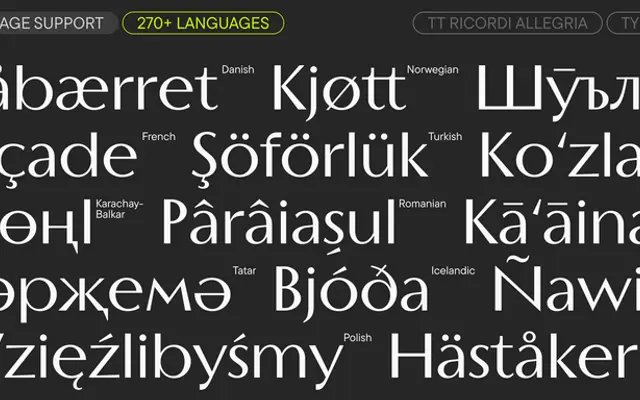
TT Ricordi Allegria
TypeType · Antonina Zhulkova · 2021
A high-contrast display sans drawn from semi-erased stone inscriptions at Florence's Basilica di Santa Croce, with multiple stylistic sets that shift its character from austere to fluid.
Designed by Antonina Zhulkova as part of TypeType's Ricordi series, which mines historical plaques and inscriptions for contemporary type. The family sits at the boundary between classical Antiqua and Florentine grotesque, with hyperbolised dynamic proportions, strong stroke contrast and wedge-shaped stroke ends in place of serifs. A major 2025 update added a full lowercase, three new weights, a variable font, and support for over 230 languages across extended Latin and Cyrillic.
Described by TypeType as a Florentine grotesque, the typeface sits between classical Antiqua and grotesque: it has no traditional serifs but features strong stroke contrast and wedge-shaped terminals drawn from stone-carved inscriptions.